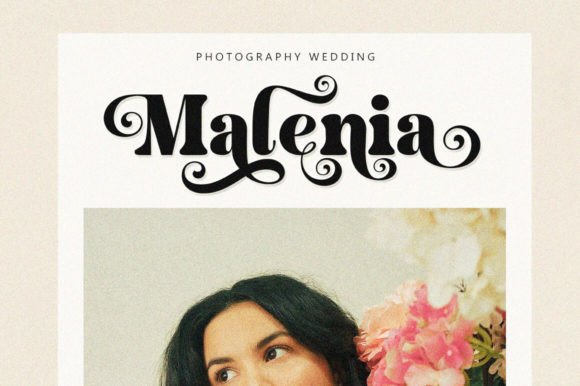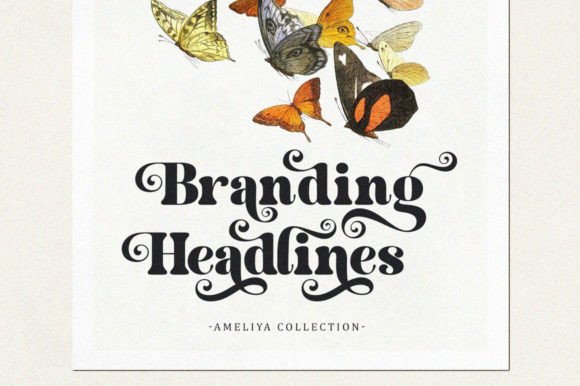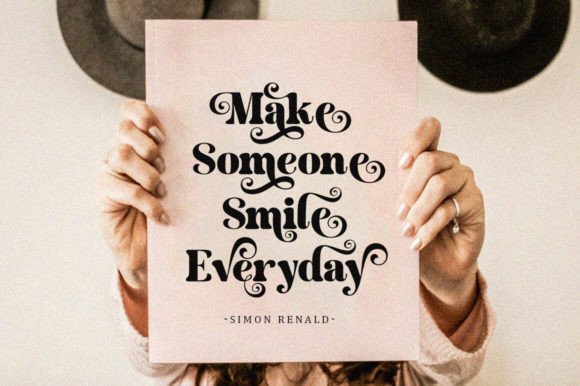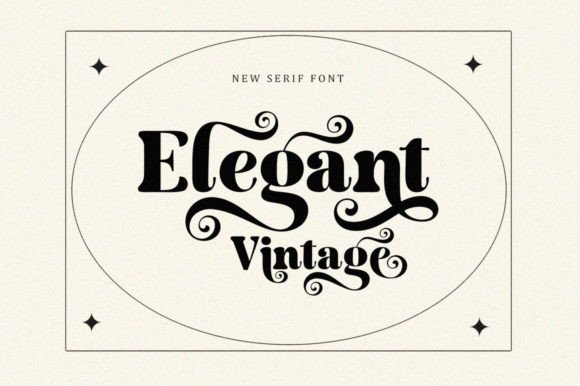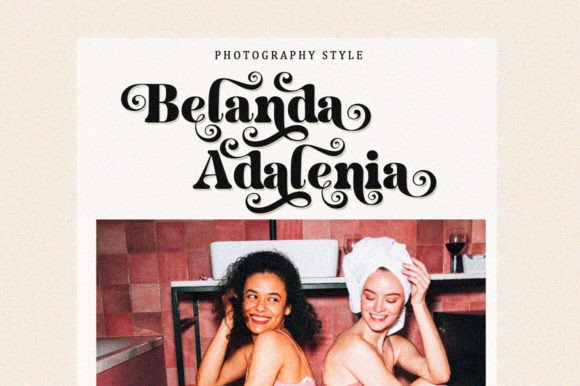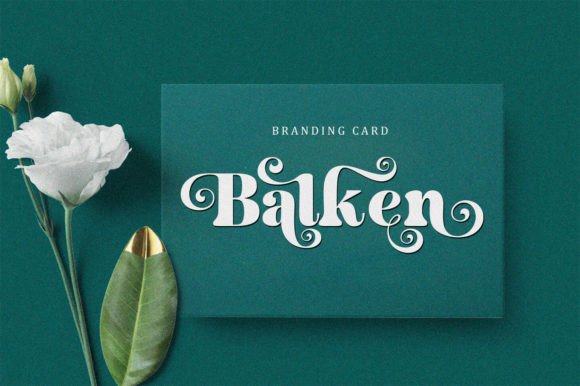
The Perfect Blend of Classic and Modern: Unveiling the Baby Malgen Font
There’s nothing quite like the thrill of bringing a design concept to life. You’ve poured your heart and soul into it, and finally, the moment of truth arrives – it’s time to choose the perfect font. The right font can make or break a design, and that’s where the Baby Malgen Font comes in.
Baby Malgen Font is a beautiful and versatile serif font that effortlessly blends classic elegance with modern flair. With its luxurious style and friendly, cheerful tone, it’s the perfect choice for designers looking to create unique and edgy designs. Whether you’re working on a high-end branding project or a personal creative endeavor, Baby Malgen Font has the perfect combination of style and sophistication to elevate your design to the next level.
What sets Baby Malgen Font apart is its ability to adapt to any design style, making it an invaluable asset for designers of all levels. With its extensive range of glyphs, you’ll have endless possibilities to experiment and create truly one-of-a-kind designs.
Baby Malgen Font Key Features
- Unique Characteristics: Baby Malgen Font features a unique, hand-drawn style with rounded edges and soft lines, making it ideal for children’s books, nursery decor, and other applications where a playful, approachable feel is desired.
- Font Style: Baby Malgen Font comes in a regular and italic style, allowing for flexibility in design and layout
Baby Malgen Font Review
I recently had the chance to work with the Baby Malgen font, and here are my honest thoughts.
- The font’s unique, playful style makes it perfect for children’s book covers, nursery decor, or any project that needs a touch of whimsy.
- The font is highly legible, even at small sizes, making it a great choice for digital applications.
- The font includes a wide range of weights and styles, giving designers a lot of flexibility when it comes to customizing their projects.
- The font may not be the best choice for professional or formal projects, as its playful style may not be taken seriously.
- The font lacks a bold, condensed weight, which may limit its use in certain applications.
- The font’s open-source nature means it may not be as polished or refined as some commercial fonts.
Overall, I think the Baby Malgen font is a great choice for designers looking for a fun, playful font. While it may have some limitations, its unique style and wide range of weights and styles make it a valuable addition to any designer’s toolkit.
Tips for Getting the Most Out of Baby Malgen Font
To get the most out of Baby Malgen Font, use it in combination with other design elements to create a unique and eye-catching visual effect. Experiment with different font sizes, colors, and styles to create a cohesive and visually appealing design. You can also use the font to add a touch of whimsy and personality to your design.
Common Use Cases for Baby Malgen Font
Baby Malgen Font is ideal for use in creative and playful projects, such as children’s book illustrations, party invitations, and social media graphics. It is also a great choice for use in branding and marketing materials, such as logos and business cards, to add a touch of personality and whimsy.
Alternatives to Baby Malgen Font
Great Vibes is a beautiful, elegant script font perfect for adding a touch of sophistication to your designs. It’s ideal for wedding invitations, magazine headlines, and other creative projects. Great Vibes has a more refined and classic feel compared to Baby Malgen Font, which has a more playful and handwritten look.